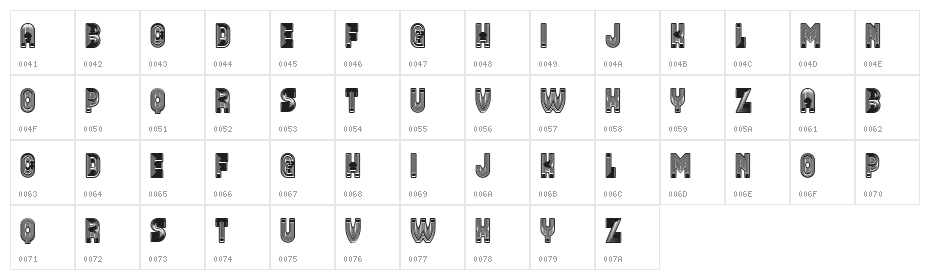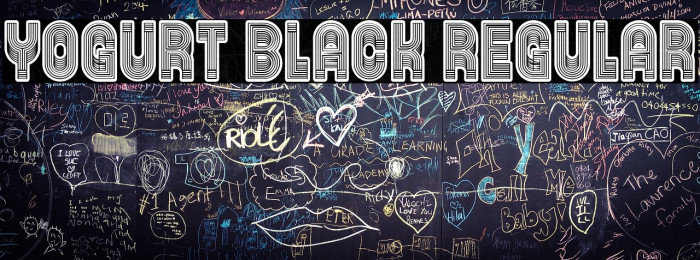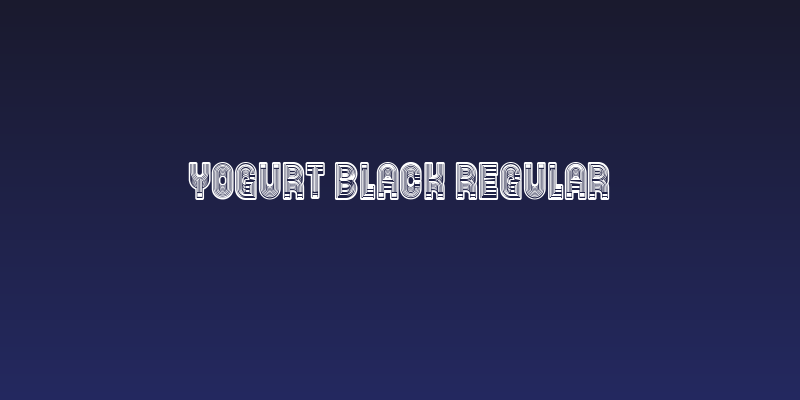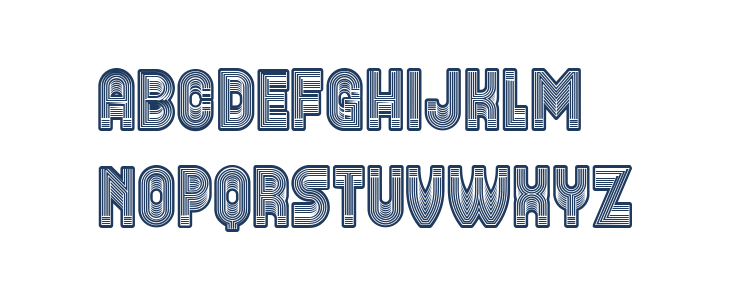
Yogurt Black Regular Font
Yogurt Black Regular Description
This font features a bold and striking design with multiple parallel lines creating a layered effect within each character. The letters are uppercase and have a geometric, structured appearance, giving them a modern and dynamic look. The intricate line work adds depth and texture, making the font highly decorative and eye-catching. It is well-suited for projects that require a bold statement or a unique visual impact. The font's design is consistent across all characters, maintaining a uniform style that enhances its visual appeal.
Proposed ProjectsIdeal for posters, headlines, branding, and any design needing a bold, decorative touch.